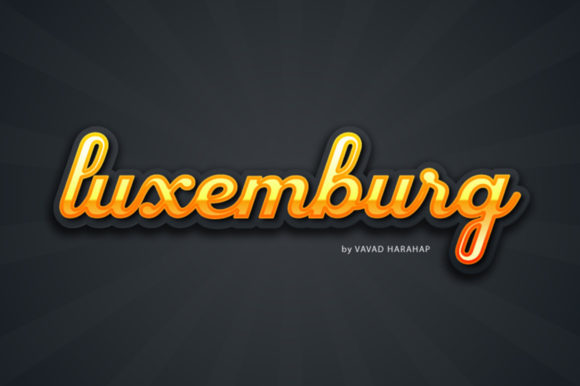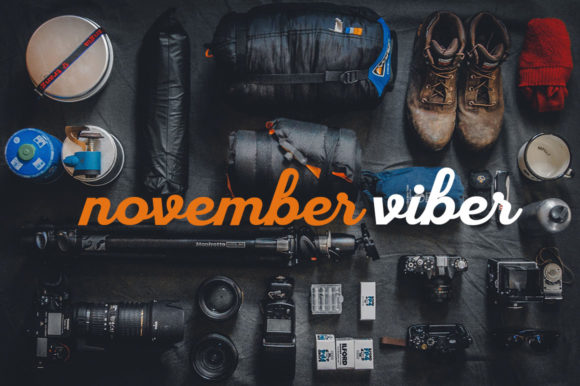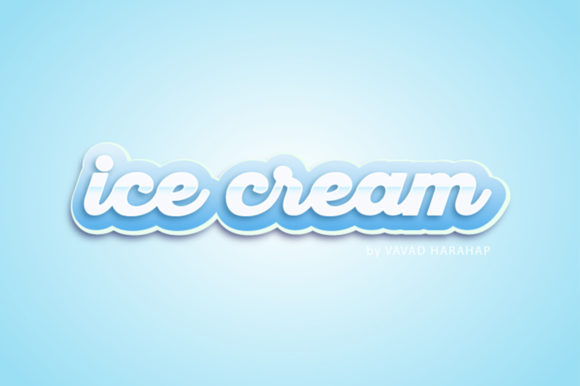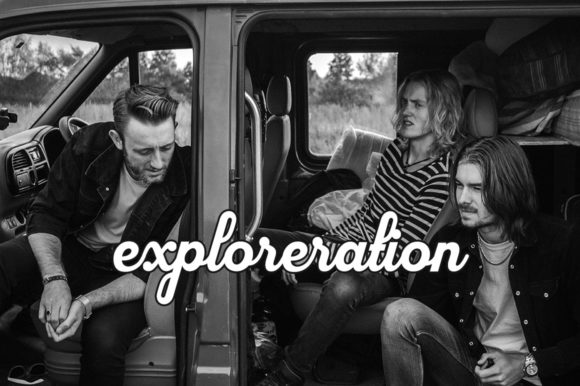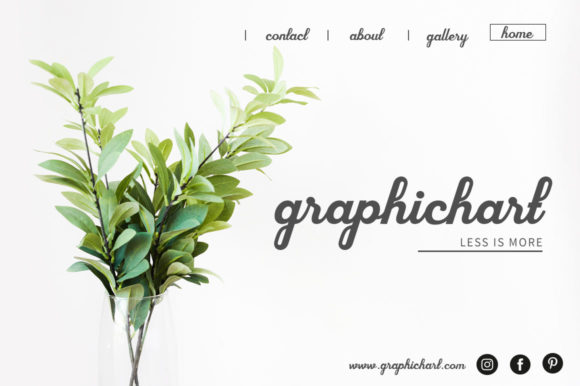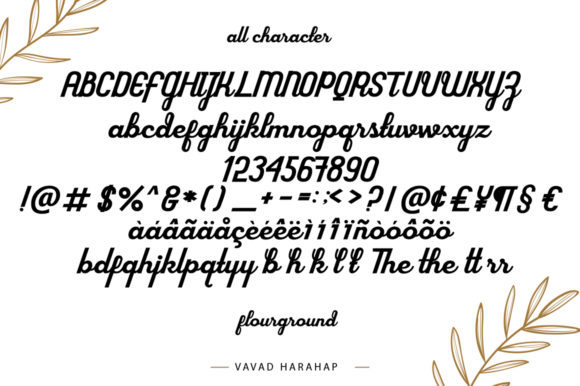
Introducing Flourground Font: The Ultimate Display Font for Bold and Trendy Designs
Are you tired of using the same old fonts for your designs? Look no further! Flourground Font is here to revolutionize your creative projects with its unique, bold, and trendy style. This display font is perfect for designers and crafters who want to add a touch of personality to their work. In this article, we’ll dive into the features and benefits of Flourground Font and explore how it can elevate your branding, packaging, and marketing materials.
What is Flourground Font?
Flourground Font is an incredibly unique, bold, and trendy display font designed to make a statement. Its distinctive style is perfect for creating eye-catching headlines, titles, and captions that grab attention. With its robust and confident appearance, Flourground Font is ideal for a wide range of applications, including branding, product packaging, invitations, quotes, t-shirts, labels, posters, and logos.
Key Features of Flourground Font
- Unique and Bold Style: Flourground Font boasts a one-of-a-kind design that’s sure to set your work apart from the crowd.
- Trendy and Modern: This font is perfect for designers who want to stay on top of the latest trends and create fresh, modern designs.
- Highly Versatile: Use Flourground Font for a variety of projects, from branding and packaging to marketing materials and more.
- Easily Readable: Despite its bold style, Flourground Font is surprisingly easy to read, making it perfect for headlines, titles, and short paragraphs.
Benefits of Using Flourground Font
So, why choose Flourground Font for your next project? Here are just a few benefits of using this incredible display font:
- Adds Personality to Your Designs: With Flourground Font, you can add a touch of personality and whimsy to your work, making it more engaging and memorable.
- Perfect for Branding and Marketing: Use Flourground Font to create bold, eye-catching headlines and titles that help your brand stand out.
How to Use Flourground Font
Using Flourground Font is easy! Here are a few tips to get you started:
- Pair it with Other Fonts: Combine Flourground Font with other fonts to create a unique and visually appealing design.
- Experiment with Colors and Textures: Try out different colors and textures to add depth and interest to your design.
- Use it for Headlines and Titles: Flourground Font is perfect for headlines, titles, and captions – use it to add a bold and eye-catching touch to your work.
- Is Flourground Font easy to read?: Yes, despite its bold style, Flourground Font is surprisingly easy to read, making it perfect for headlines, titles, and short paragraphs.